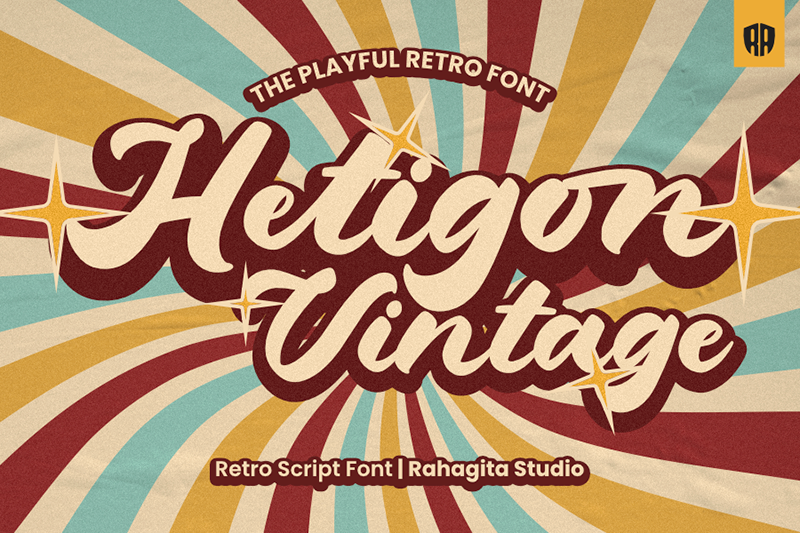
Font name: | Hetigon Vintage |
Author: | Rahagita |
Hetigon Playful Vintage is a bold and captivating font that seamlessly blends vintage charm with a playful twist. Its distinctive character lies in its ability to evoke a sense of nostalgia while maintaining a contemporary and dynamic feel. This versatile typeface is suitable for branding, logotypes, and flyers, where it effortlessly injects personality and style. This font is for personal use only! For Full Version and Commercial Use click the link: https://rahagita.com/product/hetigon-vintage/ For more info or a Paypal Donation: byrahagita@gmail.com Thanks for using our font! |